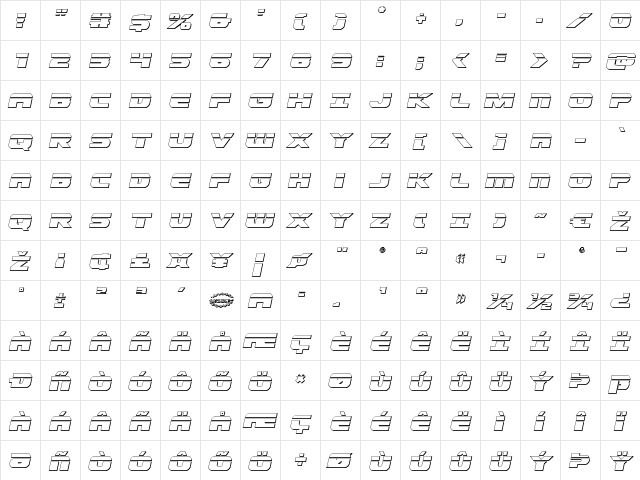
Dekaranger Bullet Italic Italic
Design Context for Dekaranger Bullet Italic Typeface
Dekaranger Bullet Italic is a composed and adaptable typeface that performs quietly and consistently across a wide range of design contexts. The slanted form adds forward momentum and visual energy.
Pro Tip: Use Dekaranger Bullet Italic for emphasis, pull quotes, and subheadings where its slanted energy can add rhythm to the layout.